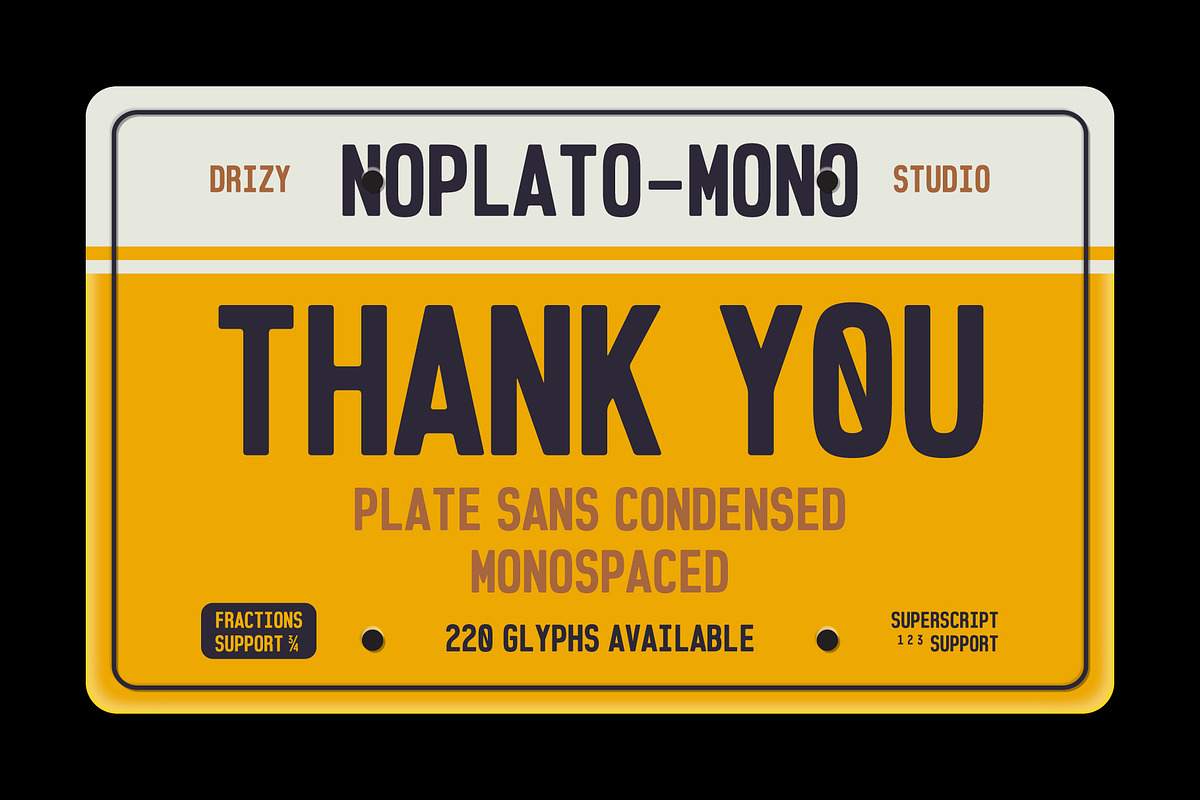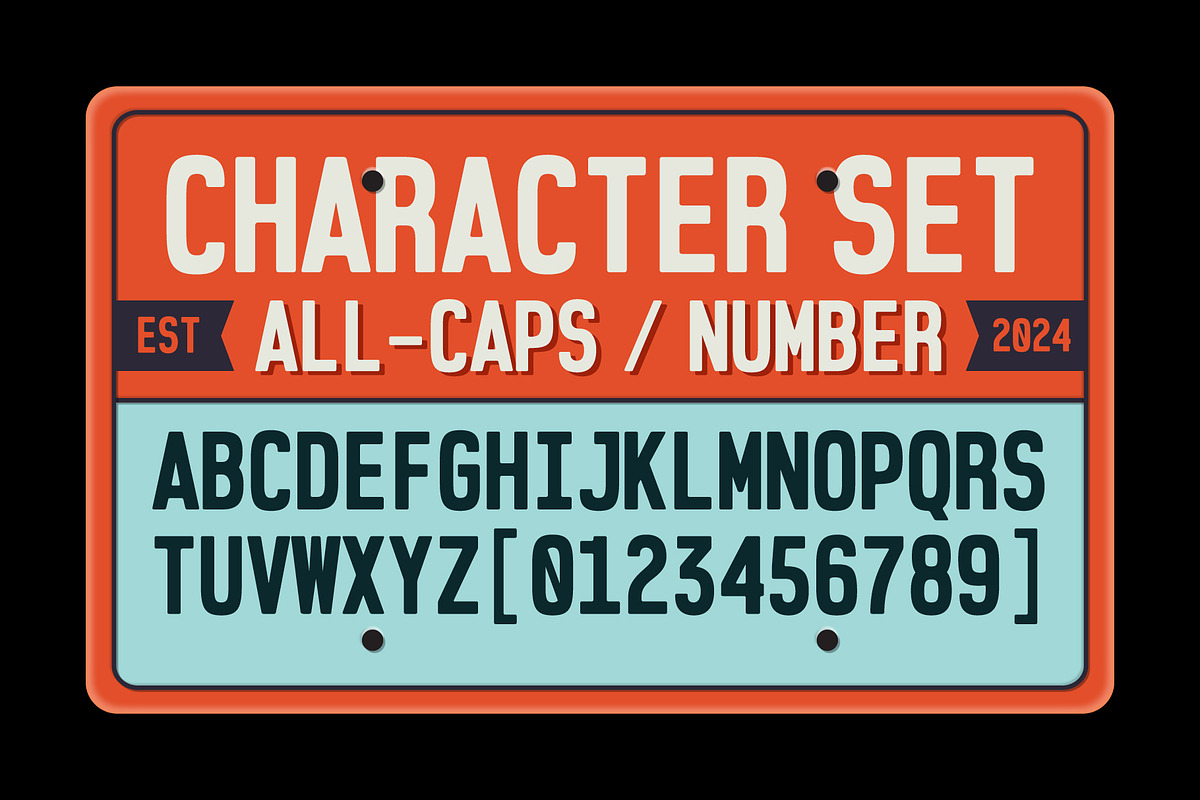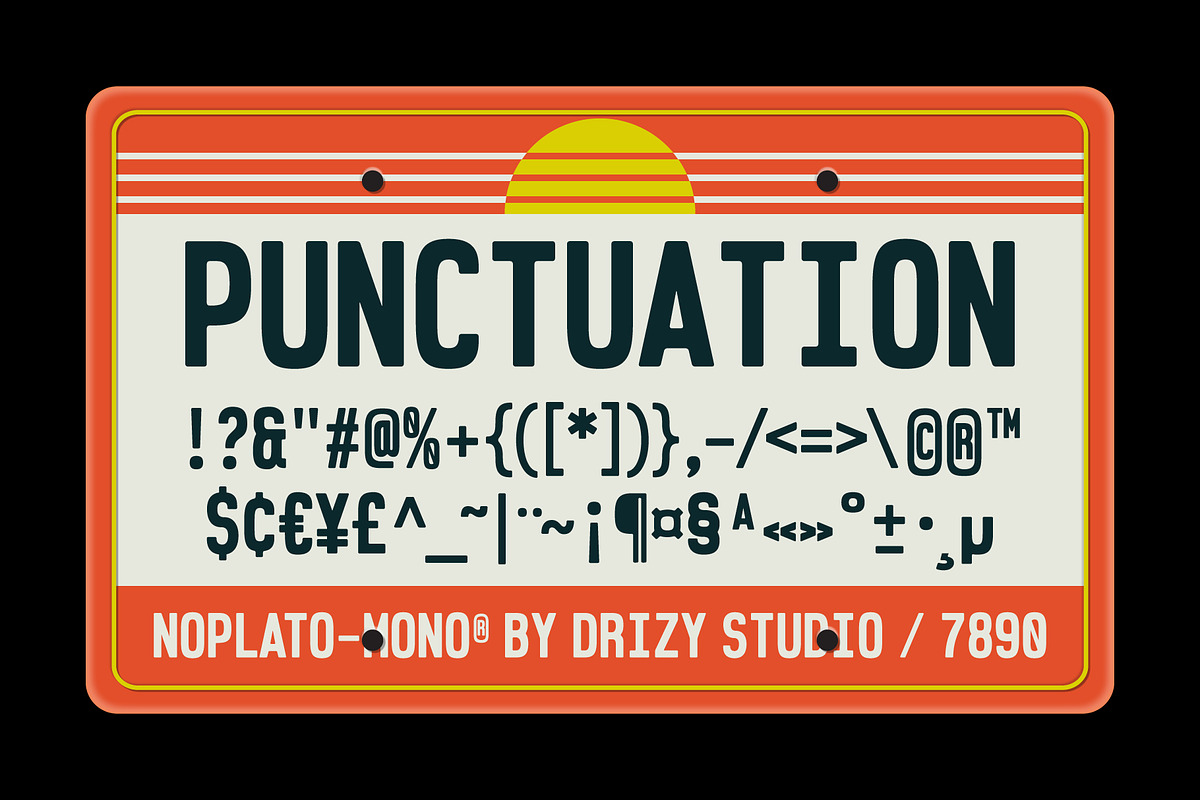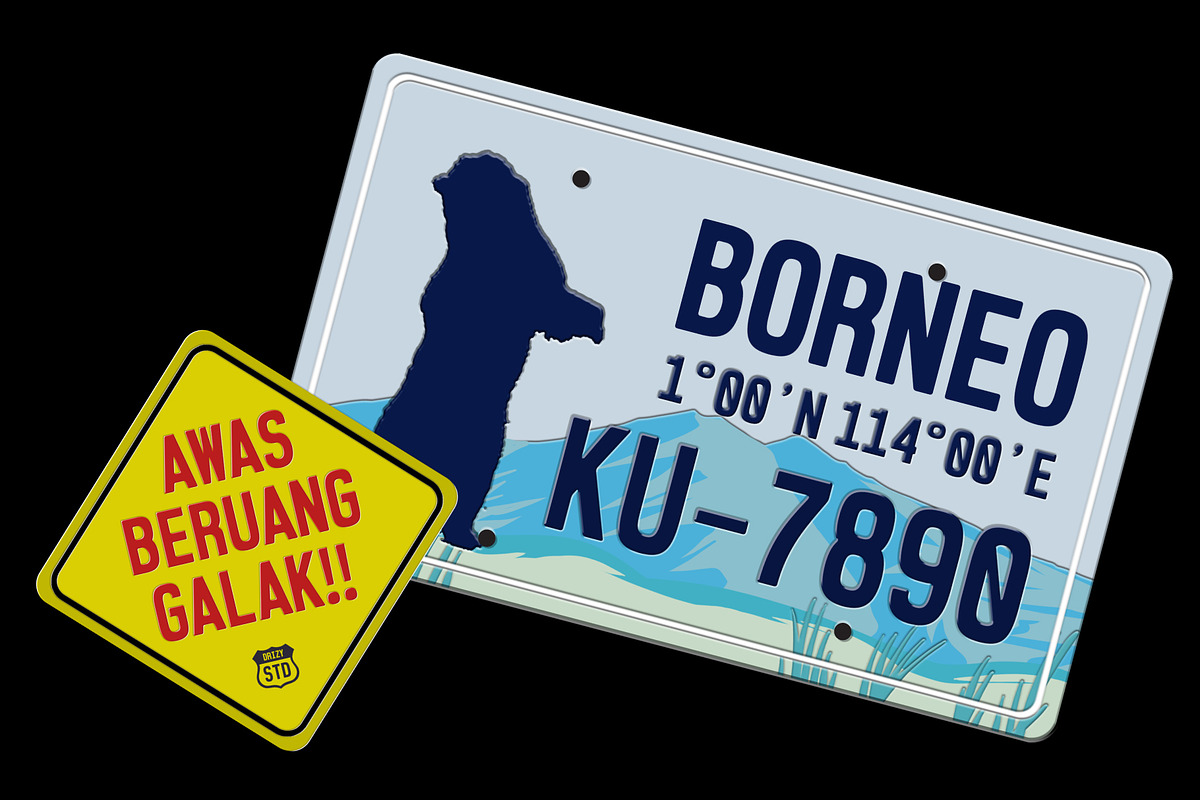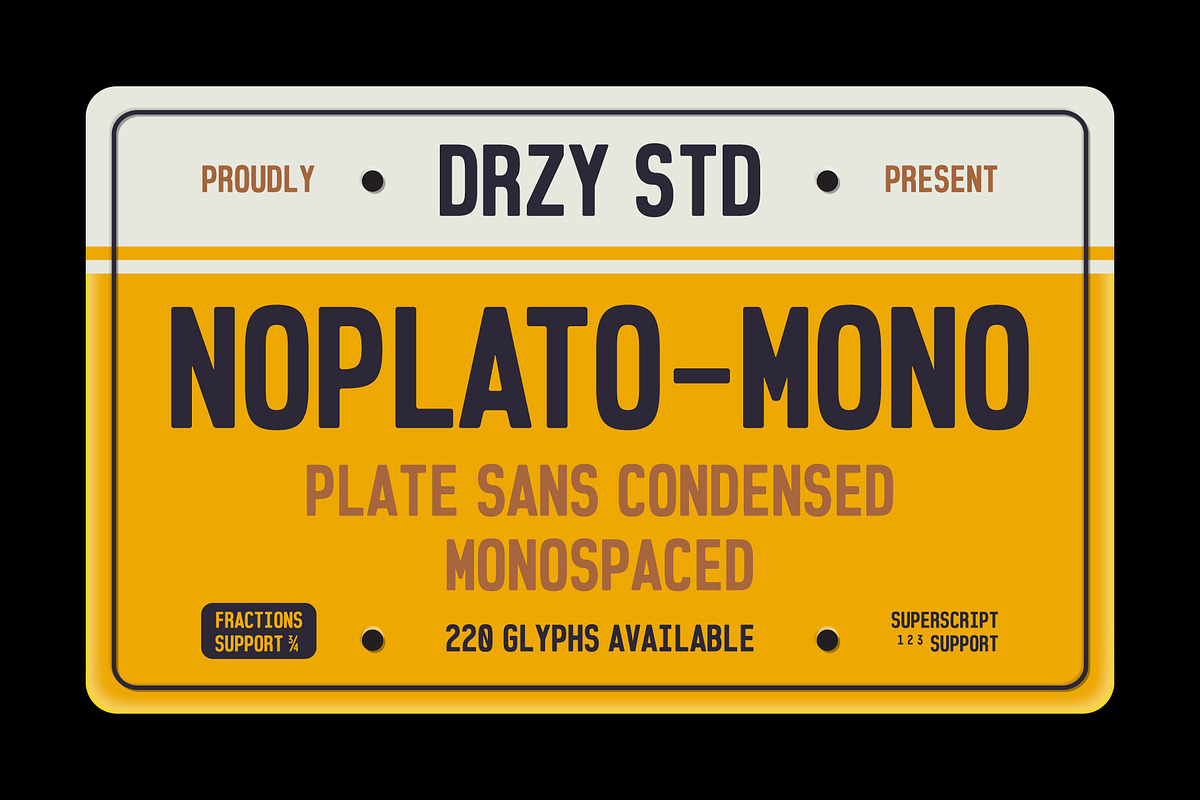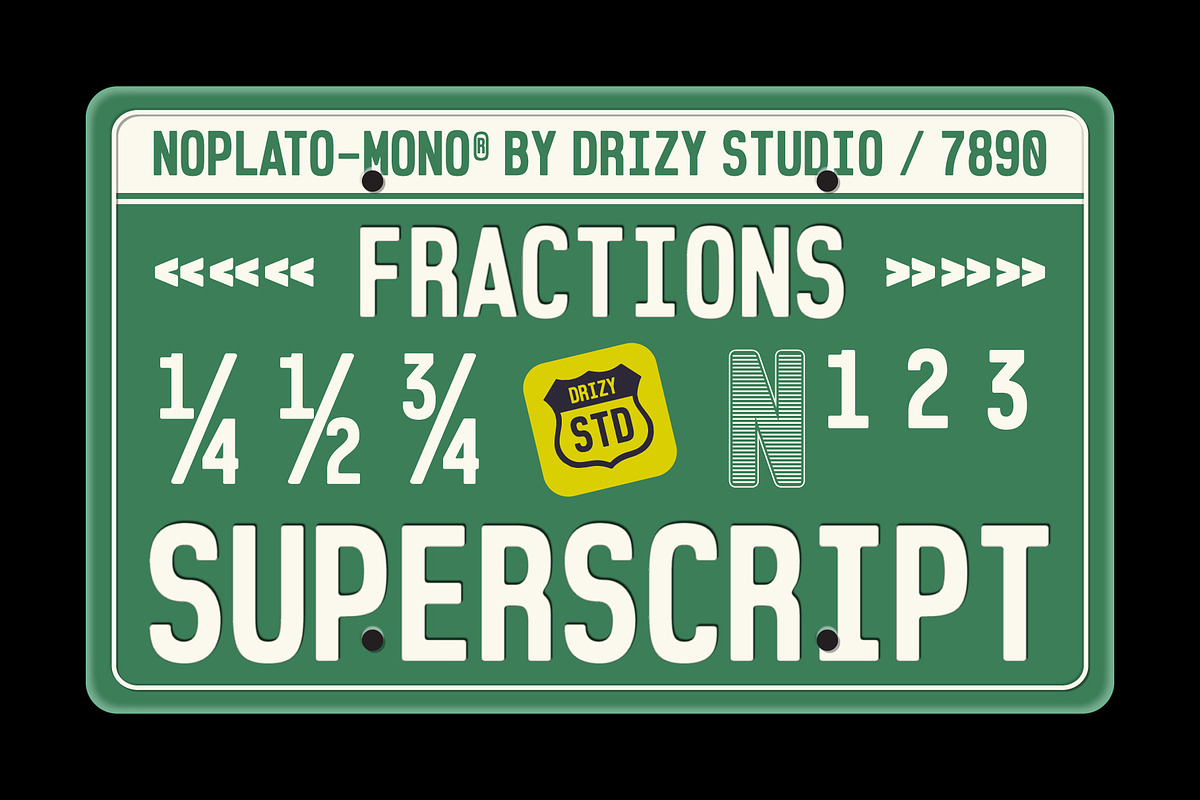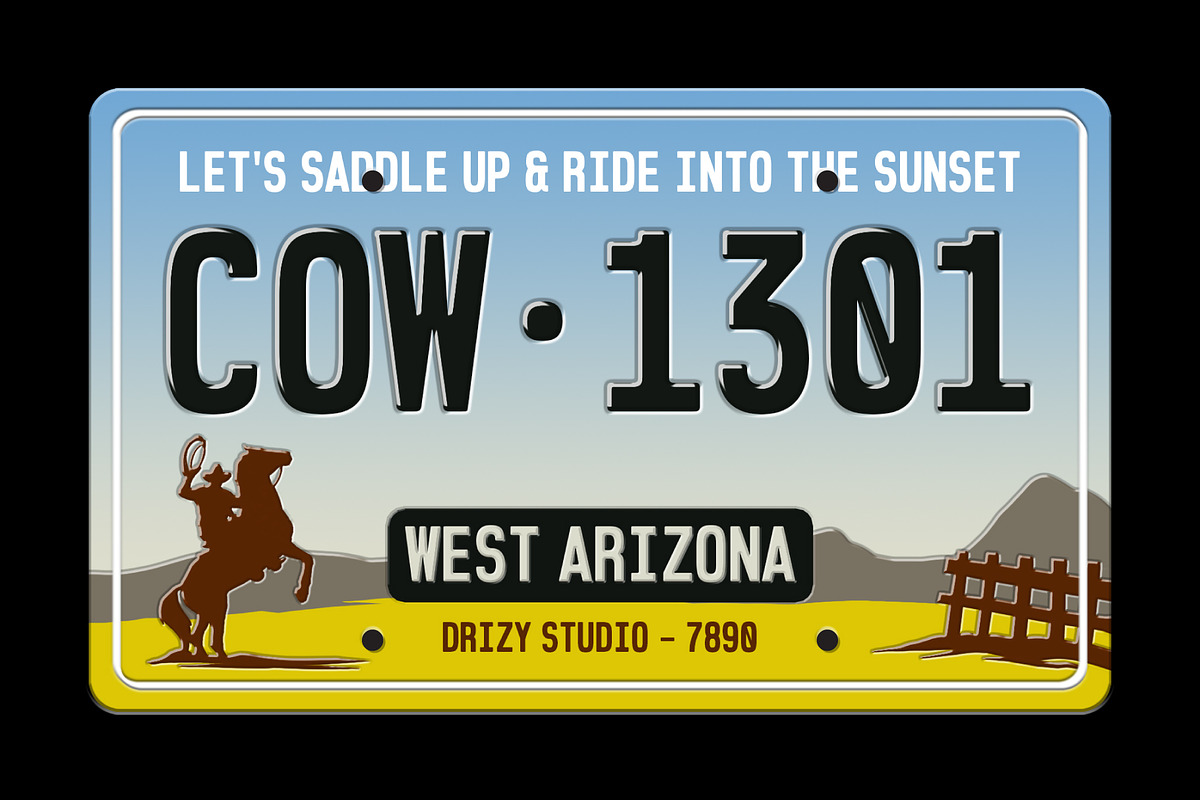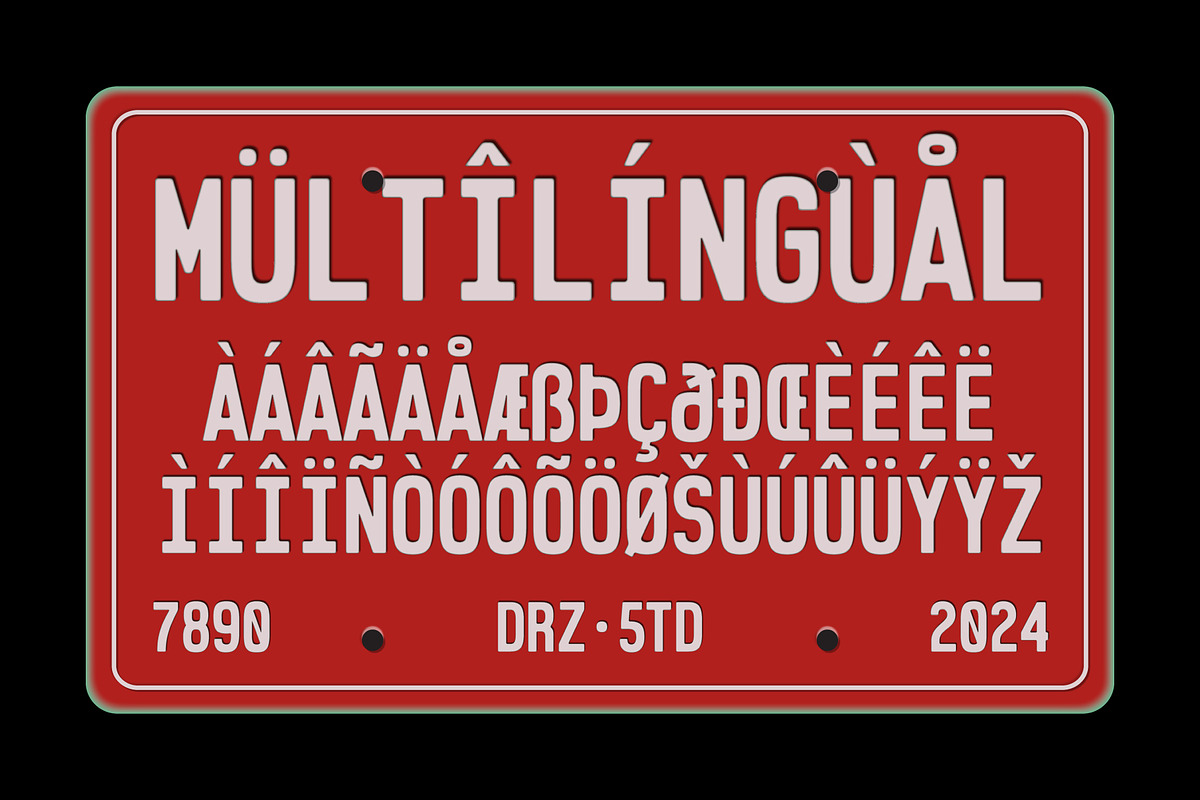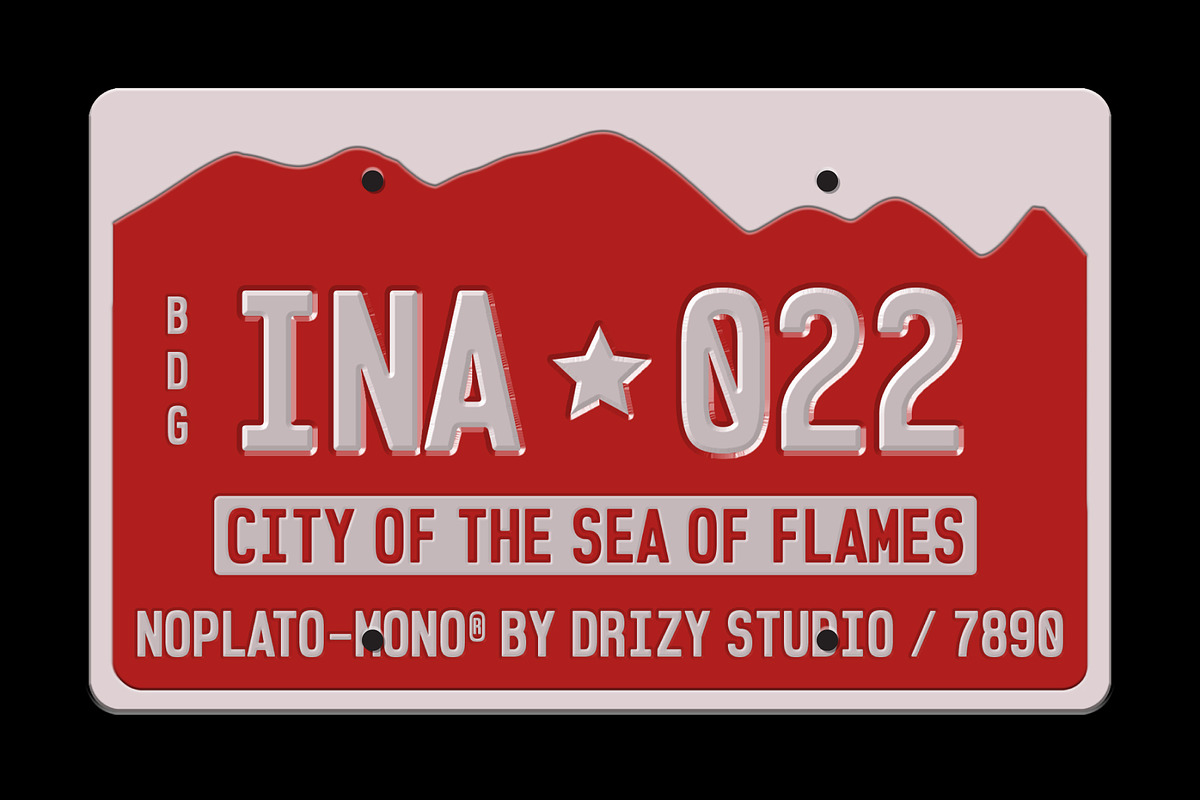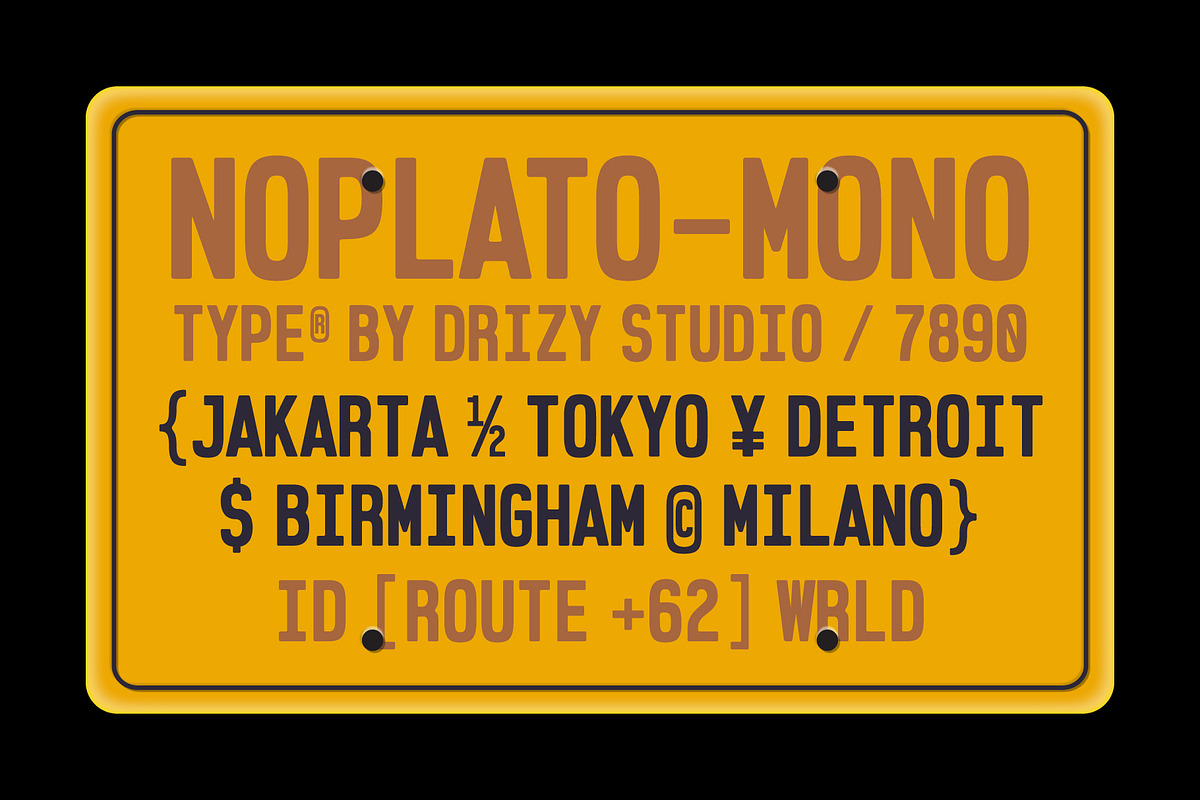
Noplato Mono - Condensed Monospaced
Noplato Mono - Sans Condensed Monospaced Font
Introducing Noplato - a stylish and condensed monospaced font tailored specifically for license plates. With its sleek design and efficient use of space, Noplato ensures that every character stands out crisply and clearly, even in the limited confines of a license plate.
Noplato - Mono features: Character Set Punctuation & Numbers Multilingual
Elevate and explore the design possibilities with this License Plate Font!